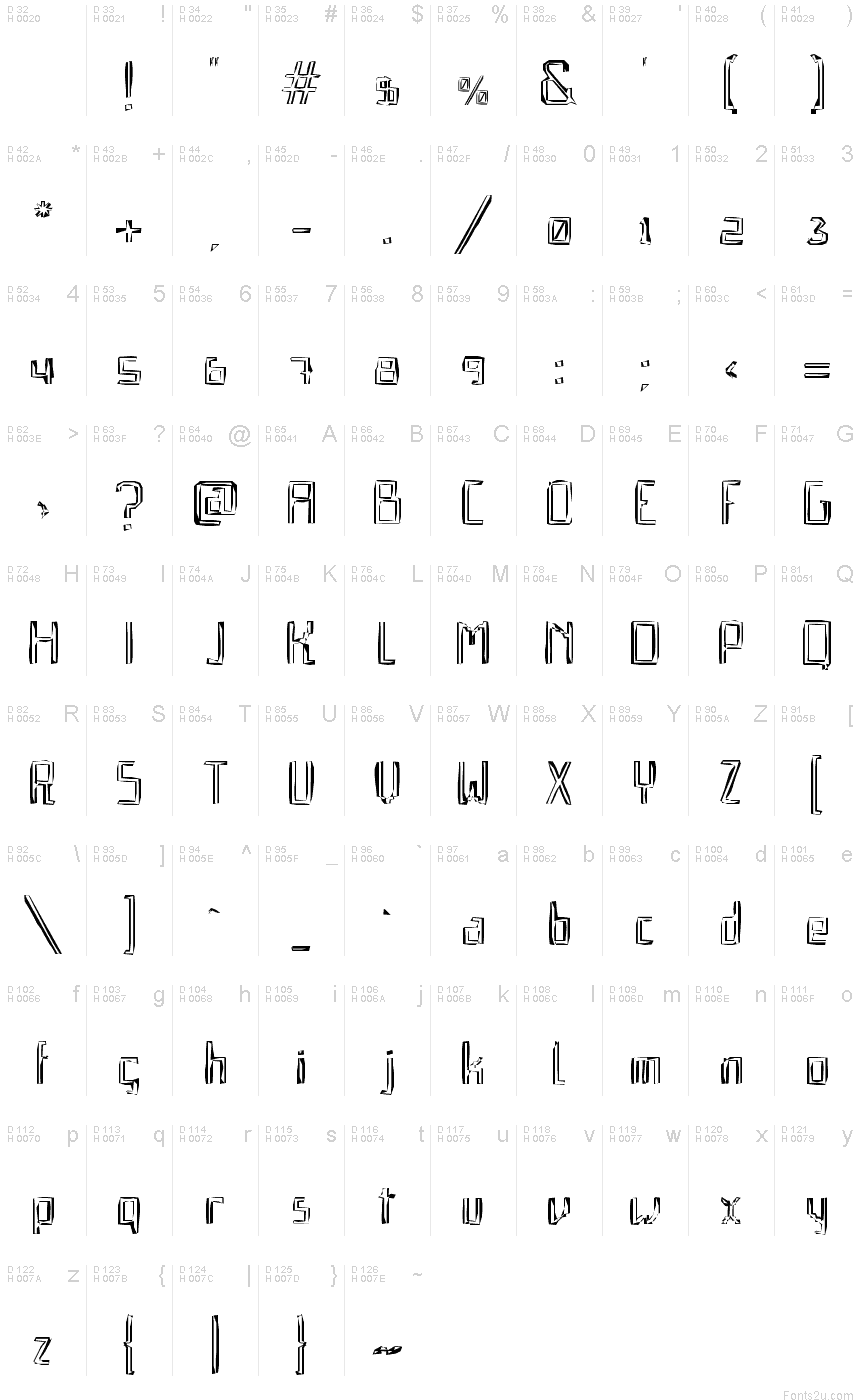
Qebrada by deFharo is a free outlined decorative display font with tall, sharply cut letters and an architectural, almost folded construction. Thin inner lines trace the main shapes, and irregular black wedges break across the strokes like offset pieces of paper, giving the alphabet a tense, fractured profile.
That angular treatment can push music posters and album artwork toward an abrasive experimental look, yet it also suits fashion branding and event graphics built around deconstruction. In each setting, the broken facets let the lettering function as both type and geometric illustration.
Esta fuente está basada, en sus proporciones, en la secuencia de fibonacci, la secuencia de Lucas y el triangulo de Kepler. Soy deFharo diseñador freelance en Spain, visita mi web defharo.com